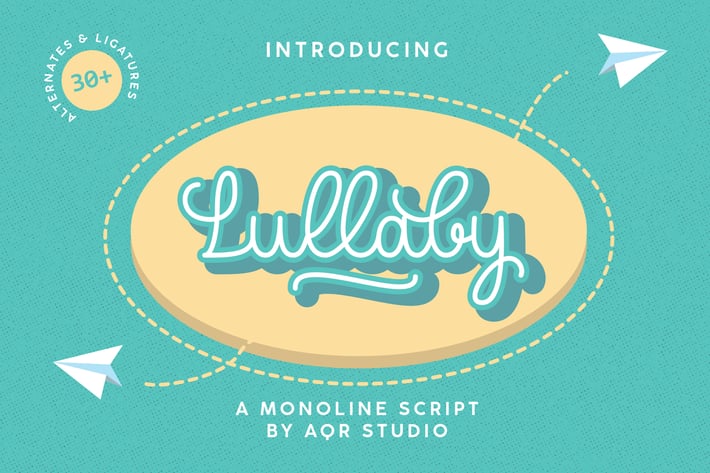
Lullaby Playful Typeface
Lullaby is manual lettering with style monoline, This font can be making a playful and funny design. Lullaby comfortable for kids design, fun design, photography, branding design and many more.
Lullaby Script Featured With :
- Basic Character
- Multilingual Character
- Alternates Character